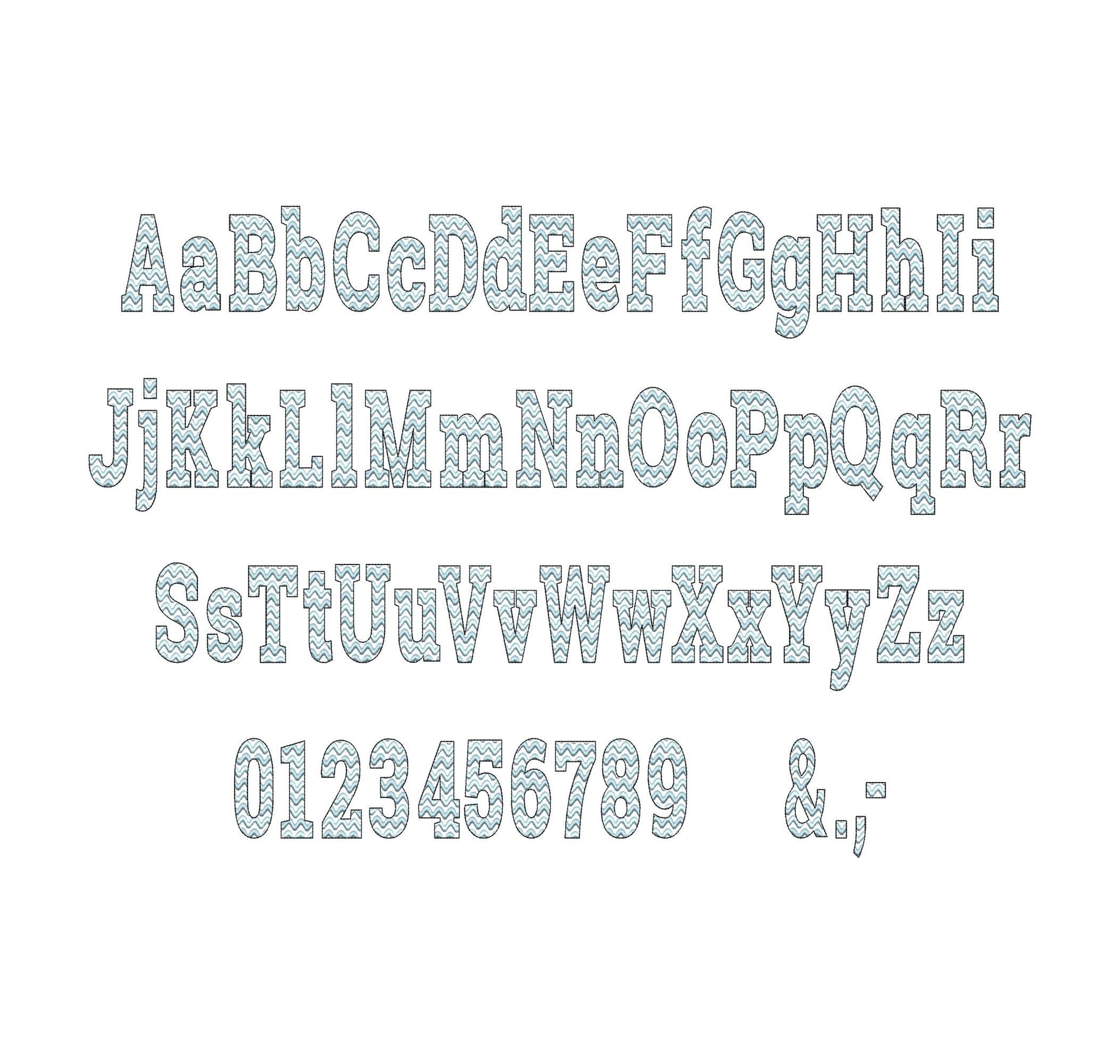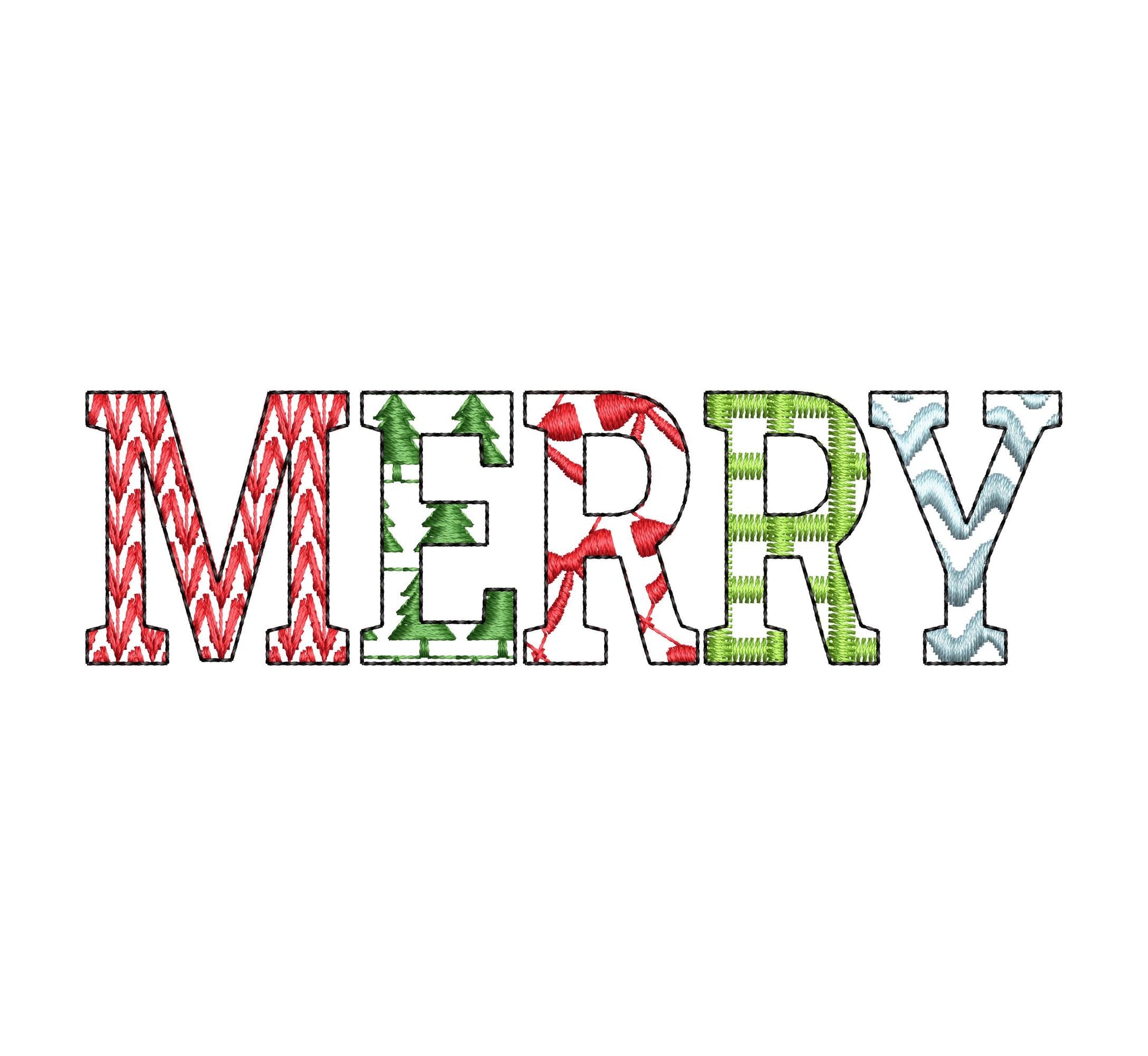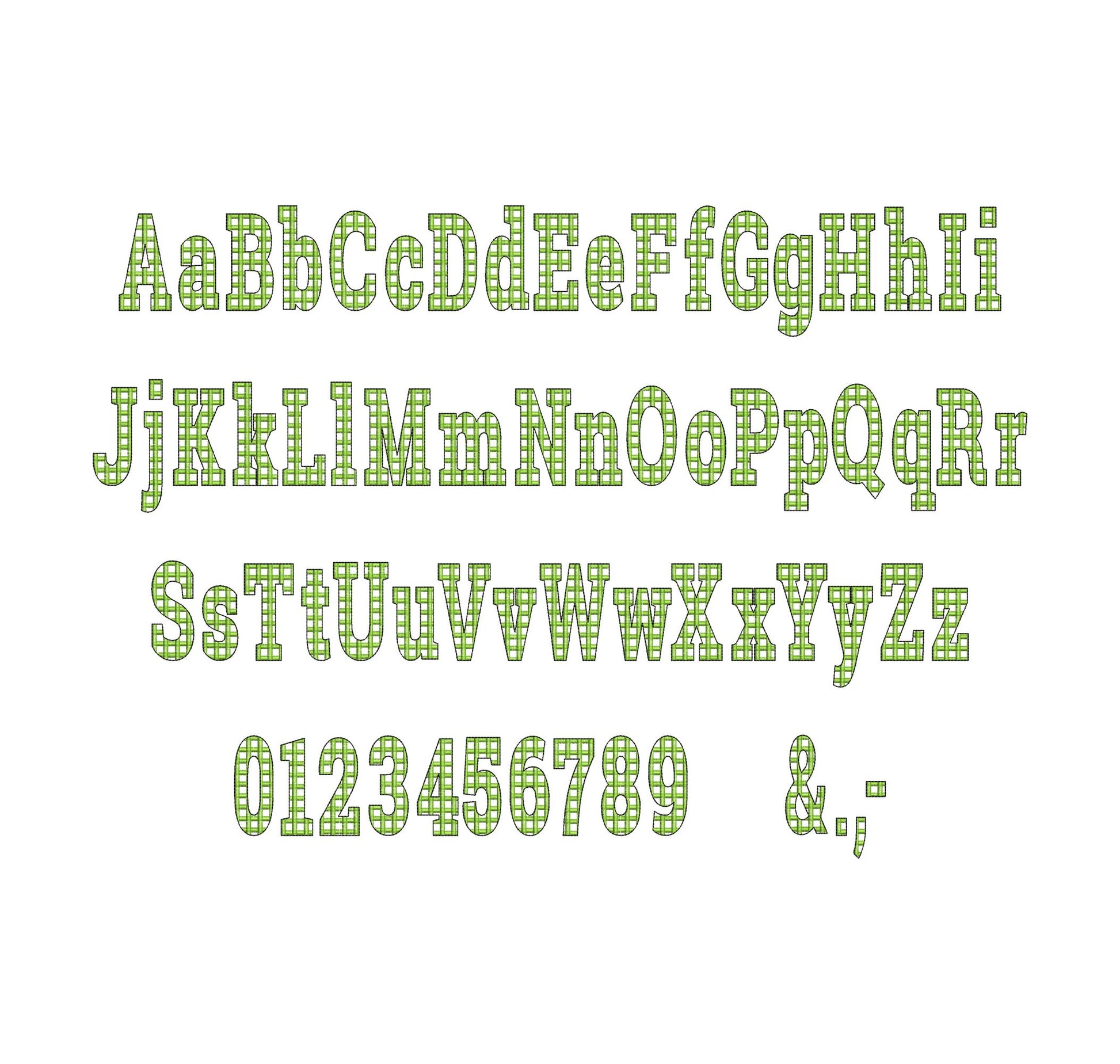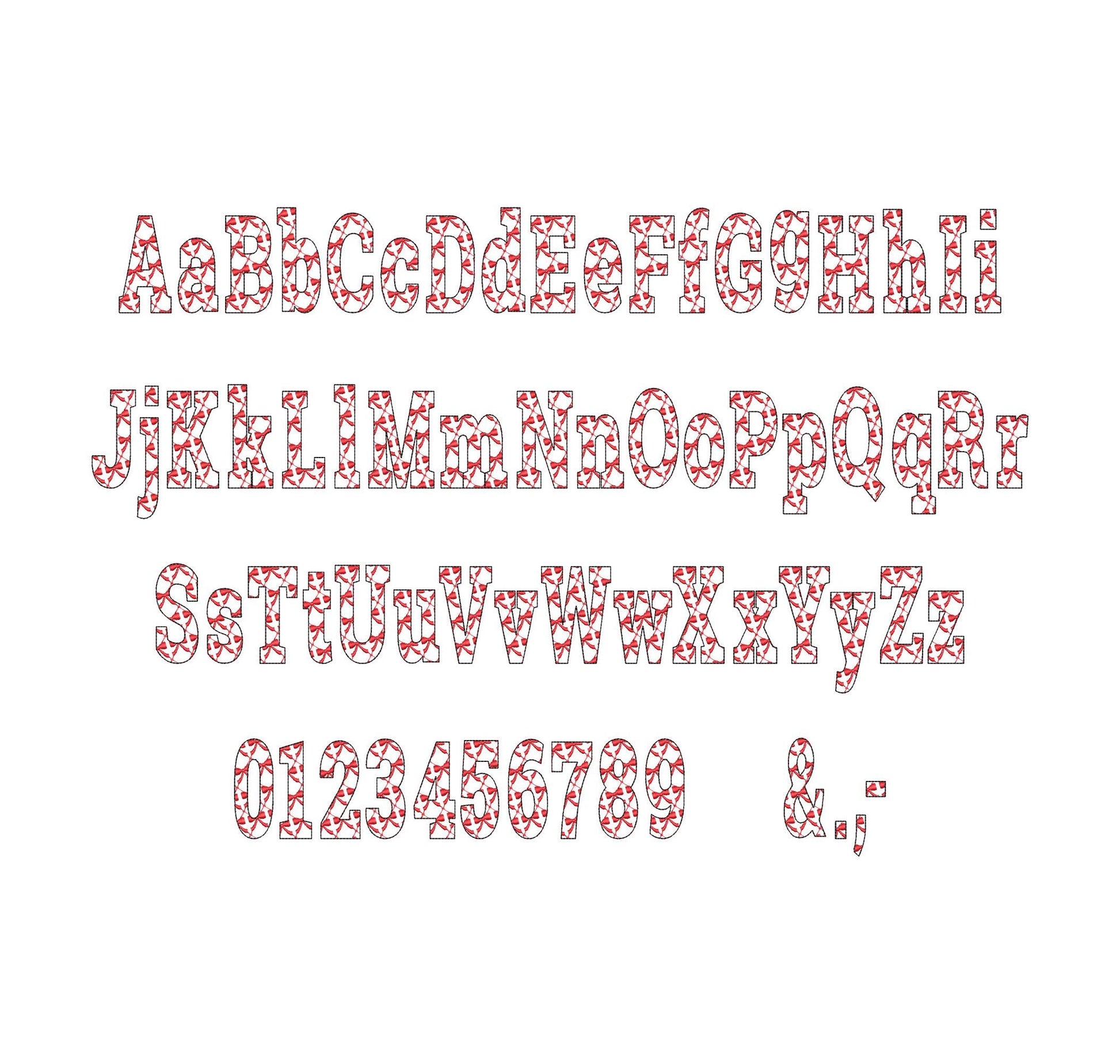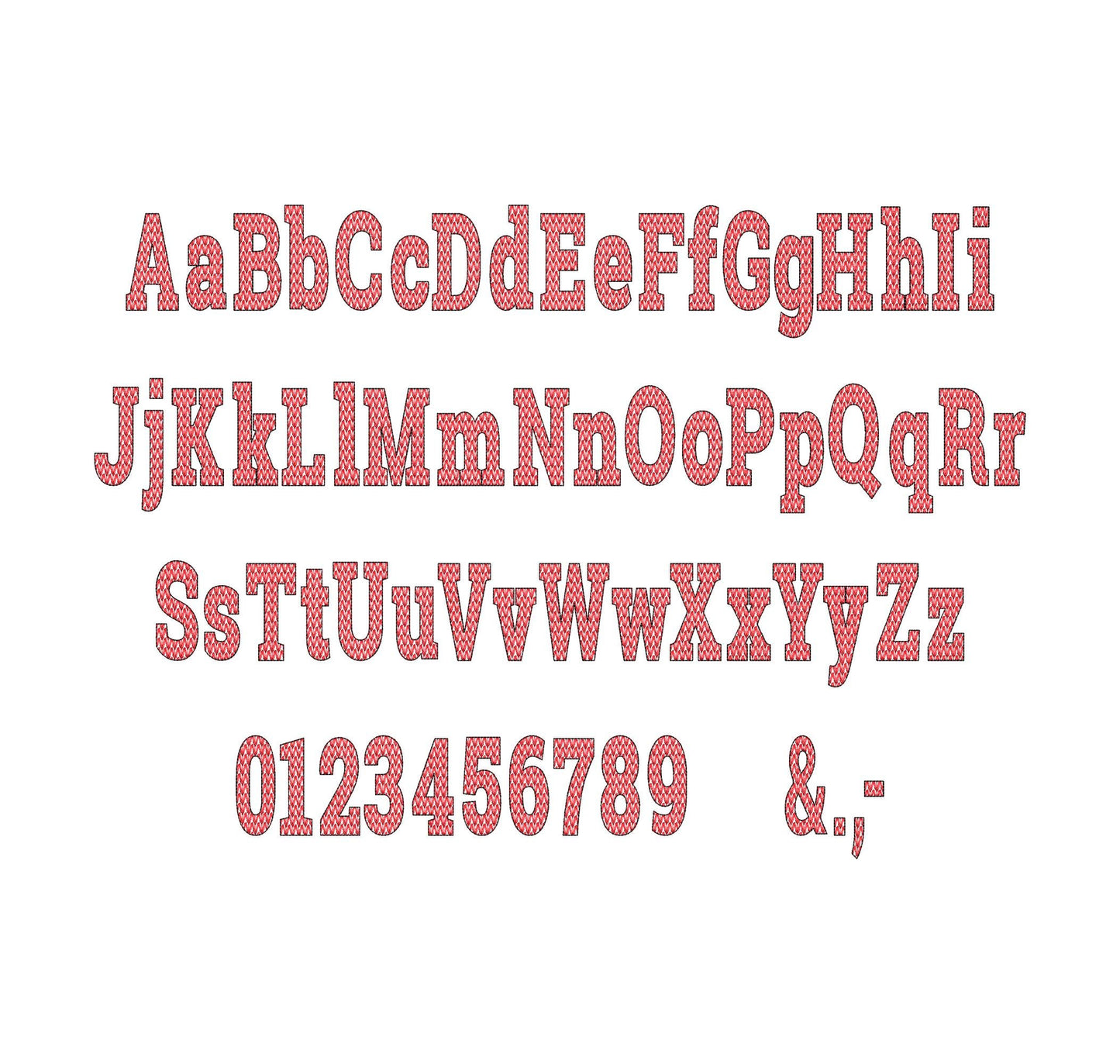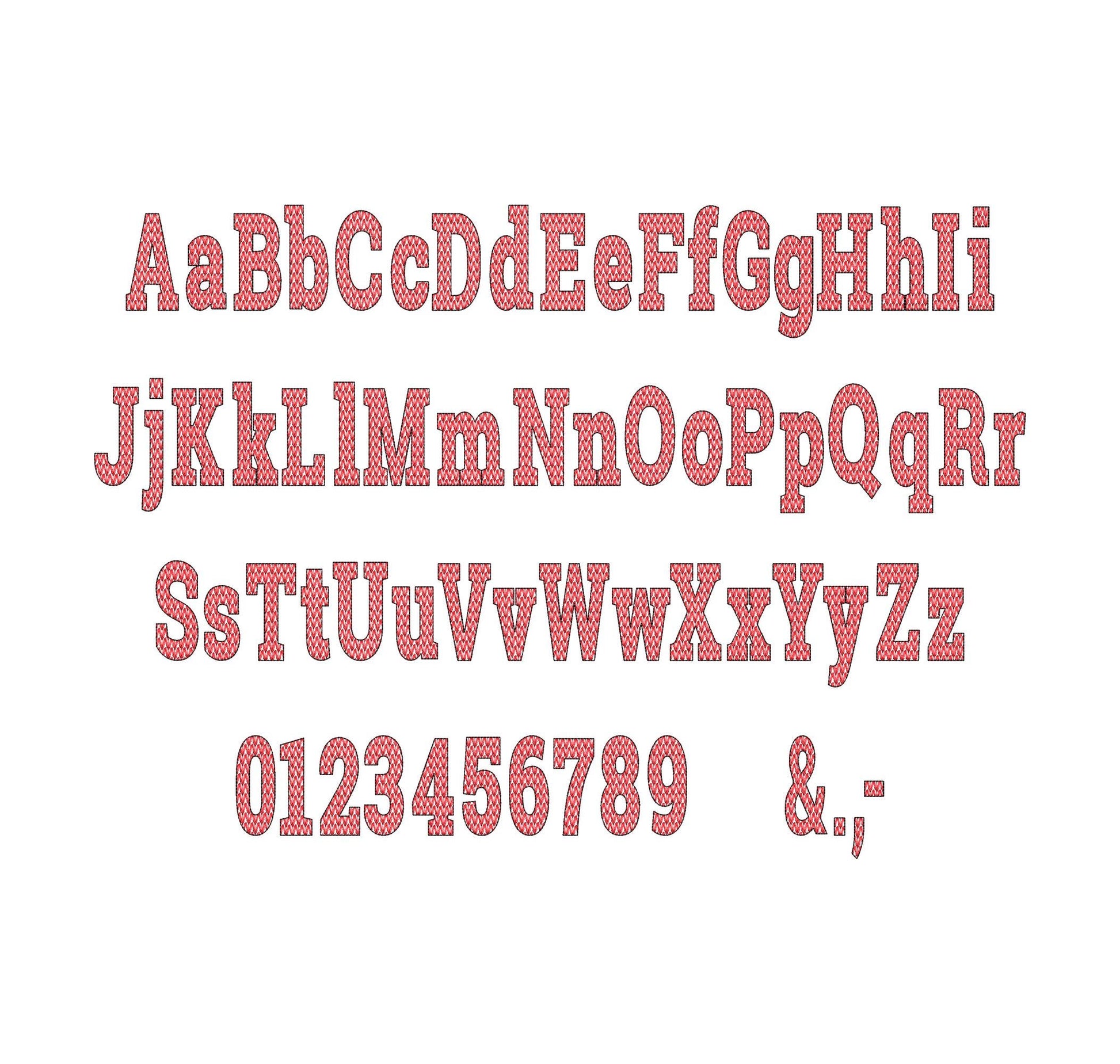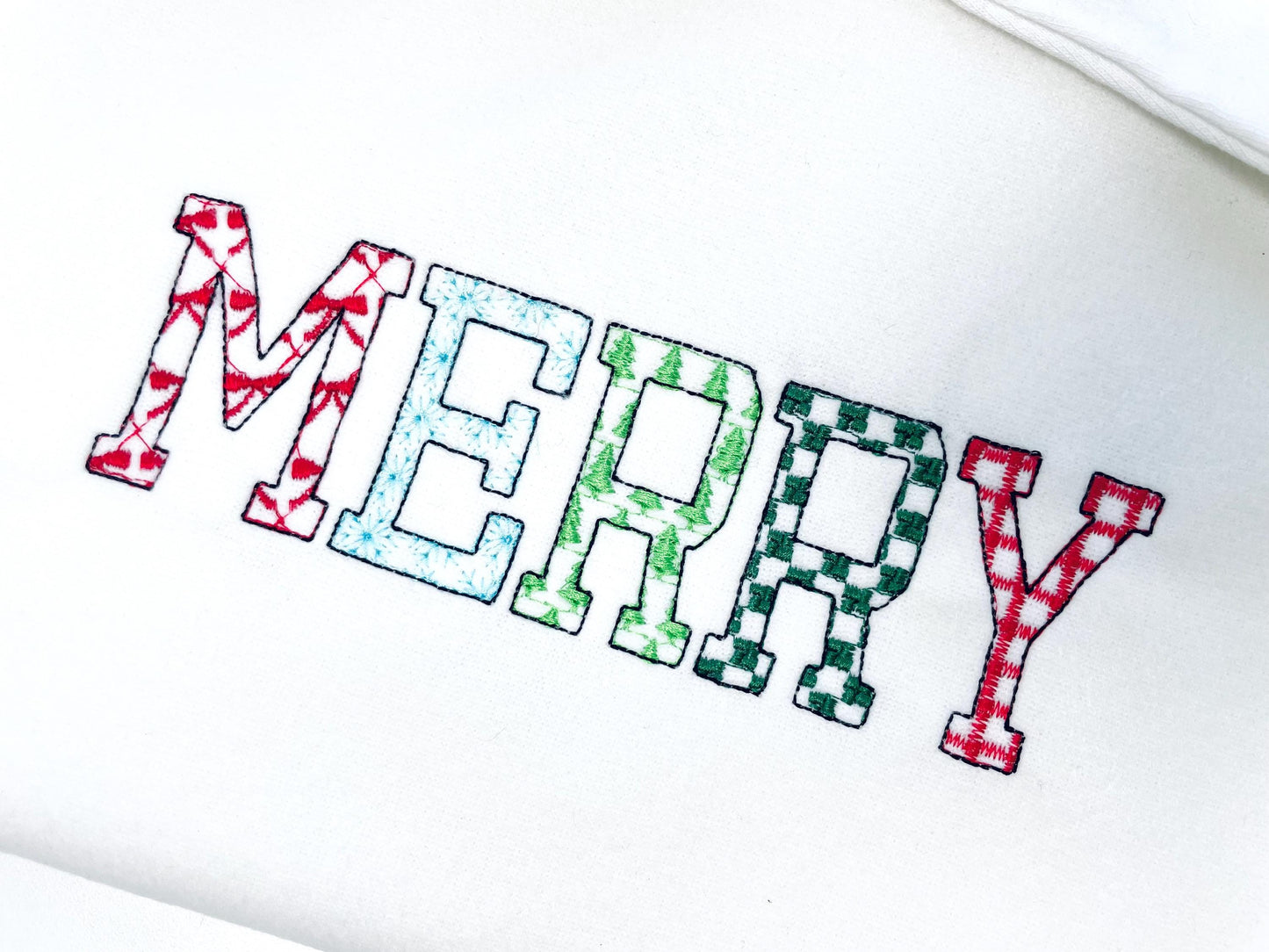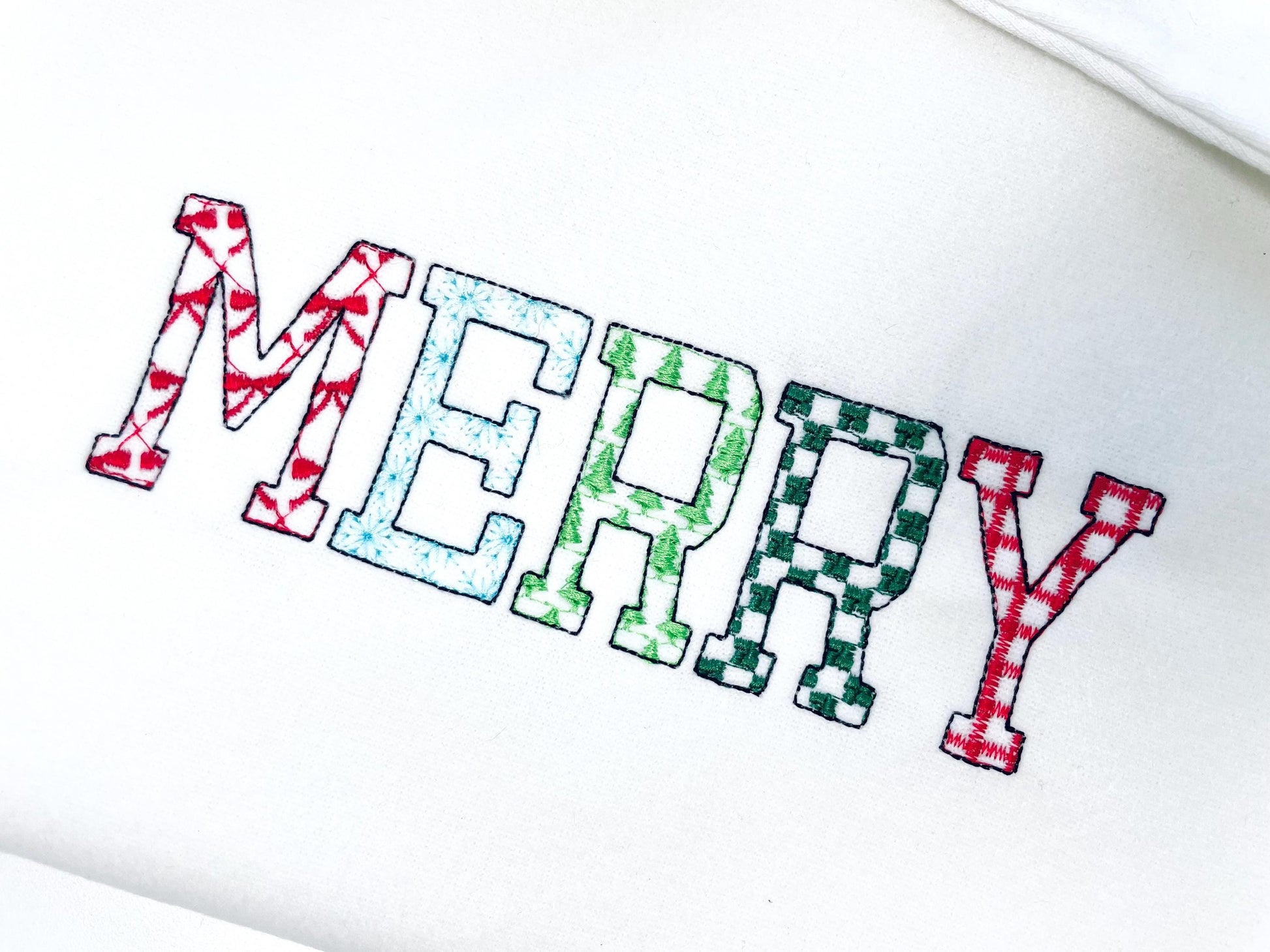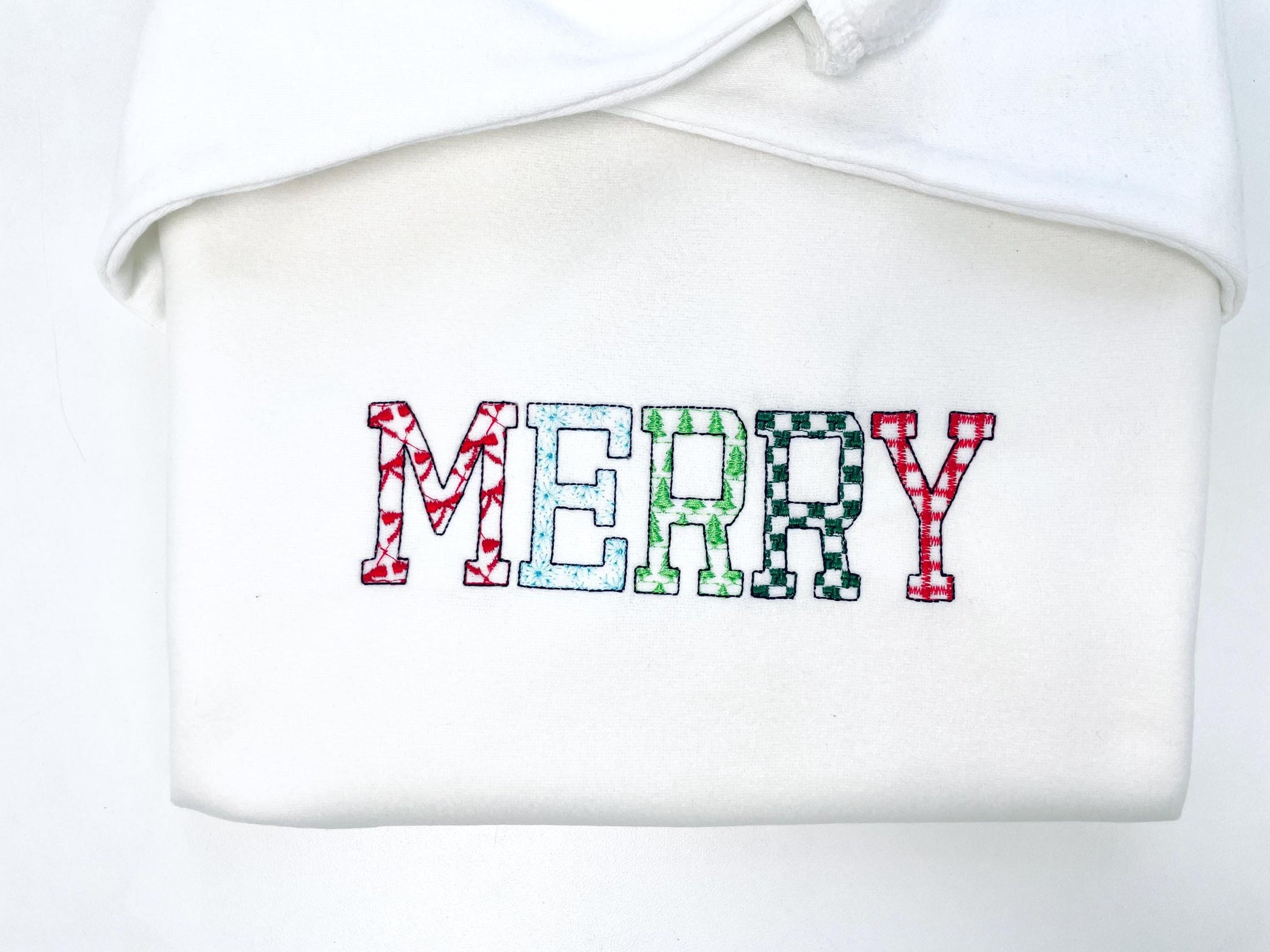
Or click to open the linkFive Christmas patterned fonts with see-through letters, a pattern inside and a light bean stitch outline. Merge and mix them for stockings, holiday shirts and names.
Five fonts: bow, checkered, ricrac, knit and tree. Each has uppercase and lowercase letters, numbers 0 to 9 and punctuation in six sizes: 1.2, 1.5, 1.9, 2.3, 2.8 and 3.4 inches.